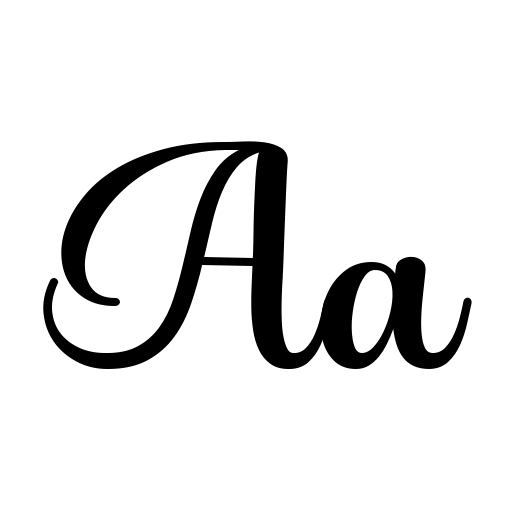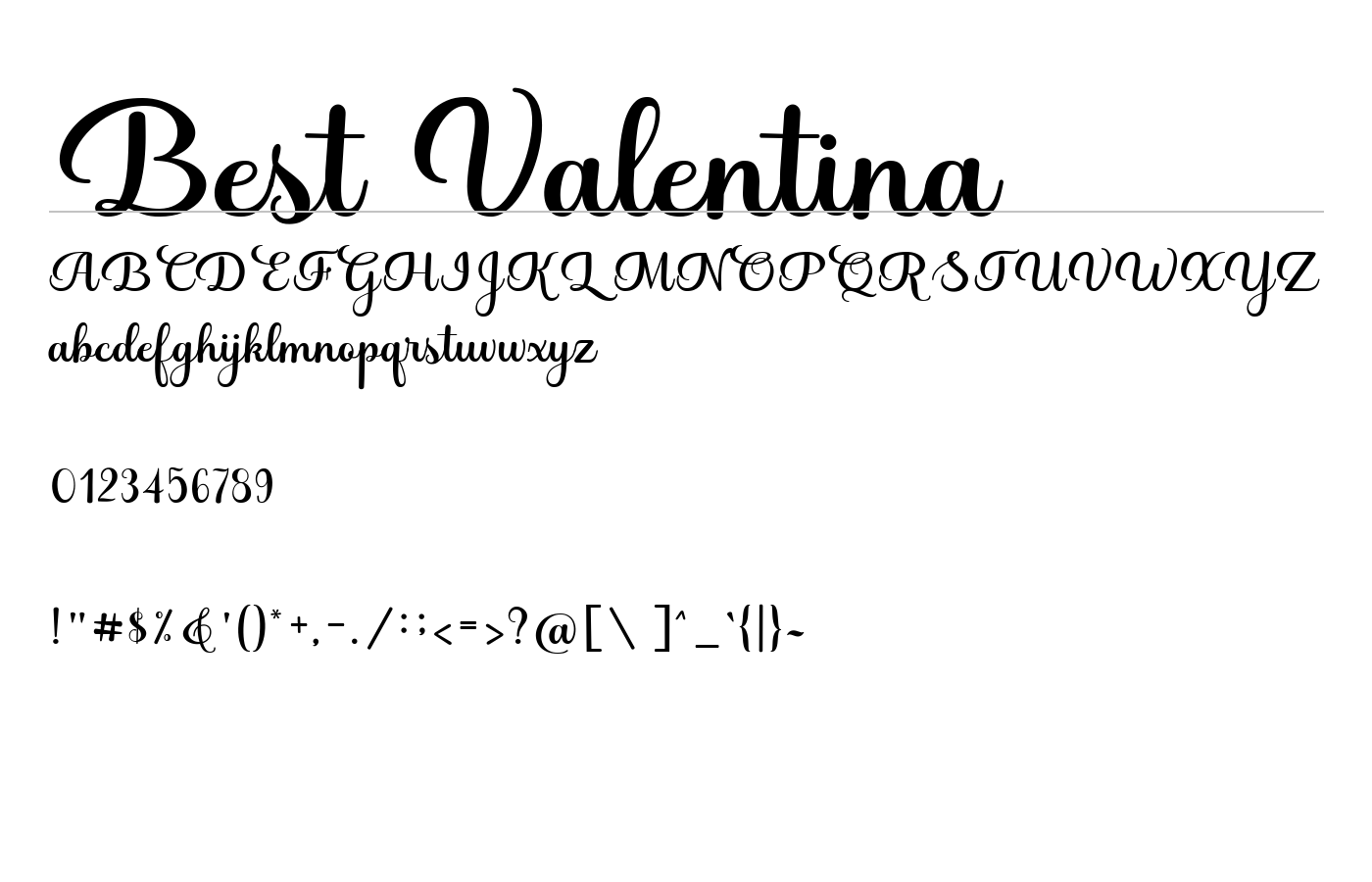
Best Valentina is an elegant script font featuring smooth, flowing strokes that combine classic charm with modern readability. Its medium weight and moderate contrast give it a friendly yet refined personality, making it perfect for invitations, branding, and fashion projects where a touch of sophistication and warmth is desired. The font’s cursive style and delicate curves lend a graceful, feminine feel that enhances luxury and romantic design themes.
Best Valentina Font
About Best Valentina Font
| Font family | Best Valentina Font |
| Designer | Romi Rahmadi |